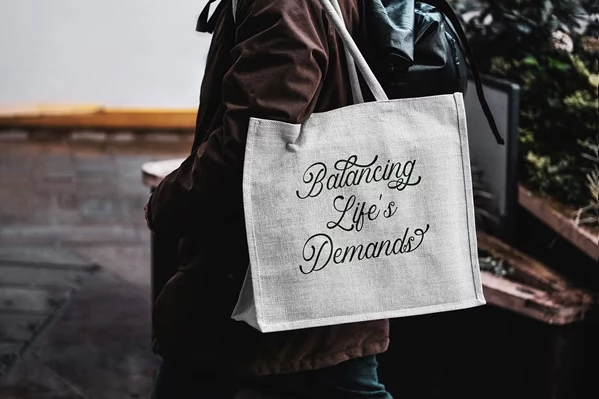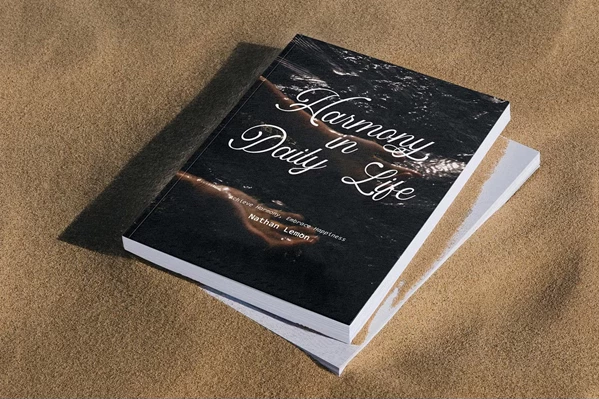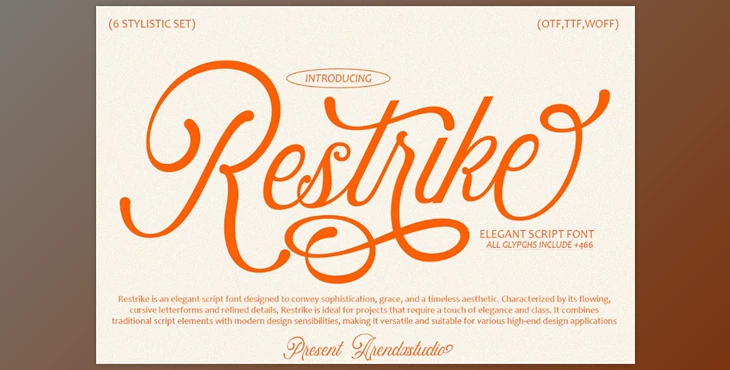
Restrike Font:
Restrike – a script typeface fusing classic cursive accents with contemporary design, adds a distinctive touch for both commercial and personal projects. With aesthetically branded cursive letters, a broad character set that includes stylistic alternates and swashes, this typeface is appealing for luxury goods and weddings while also satisfying more customizable design applications.
Some great features of Restrike Font:
- Timeless Aesthetic: Ideal for packaging and upscale print design, including branding on new products along with invitations.
- Subject Matter: Tailored towards versatile design works, customizable for many outreach campaigns.
- Enhanced Marks: Comes with more than just uppercase/lowercase alphabets, numerals, and punctuation, offering multilingual character support.
- Polished Design: Ensured style harmony with clarity makes this typeface easy to read and use, promoting refined polish.